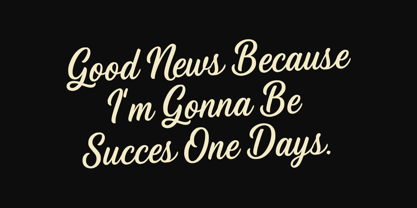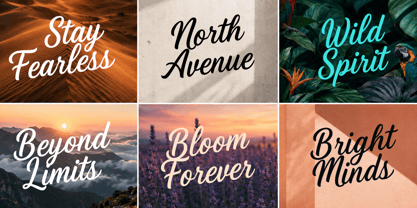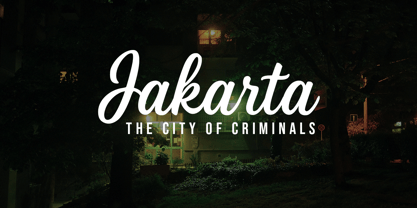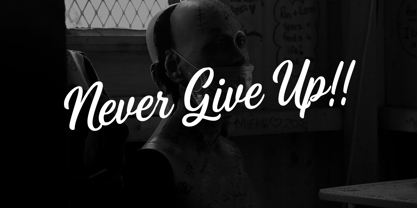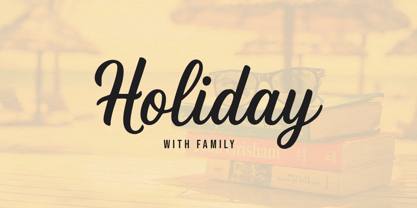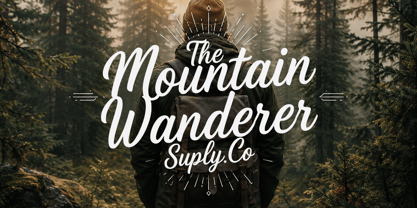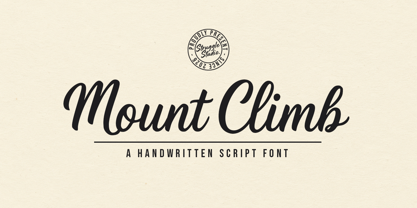
Mount Climb
by Struggle Studio
The Mount Climb Font Family was designed by Andri Kurniawan and published by Struggle Studio. Mount Climb contains 1 styles. More about this family
Mount Climb is a bold handwritten script font inspired by the spirit of adventure, exploration, and the freedom of the great outdoors. Crafted with smooth flowing strokes and natural brush-style curves, it delivers a warm, authentic, and expressive personality while maintaining excellent readability.
Designed to make a lasting impression, Mount Climb combines modern script elegance with a subtle vintage touch, making it suitable for a wide range of creative projects. Whether you’re designing for outdoor brands, travel campaigns, lifestyle products, or handcrafted businesses, this typeface brings confidence, character, and timeless appeal to every composition.
Its dynamic letterforms create a strong visual presence, making it an excellent choice for logos, product packaging, apparel, posters, social media graphics, signage, and branding materials that seek a handcrafted and adventurous aesthetic.